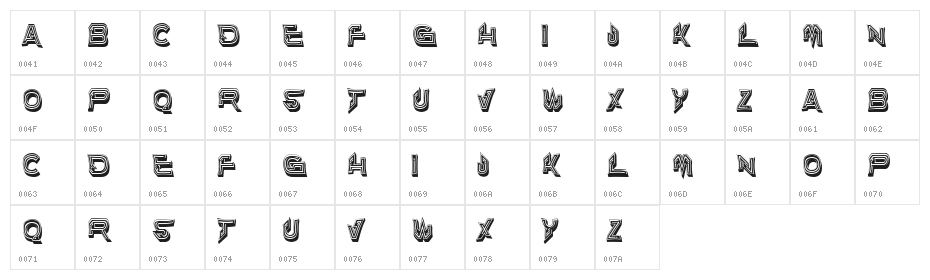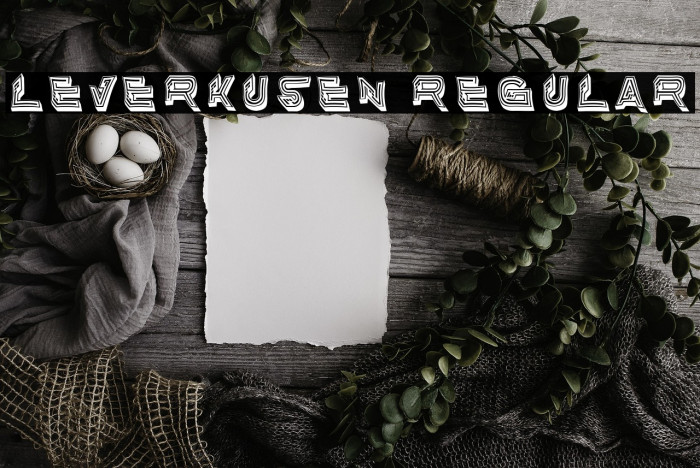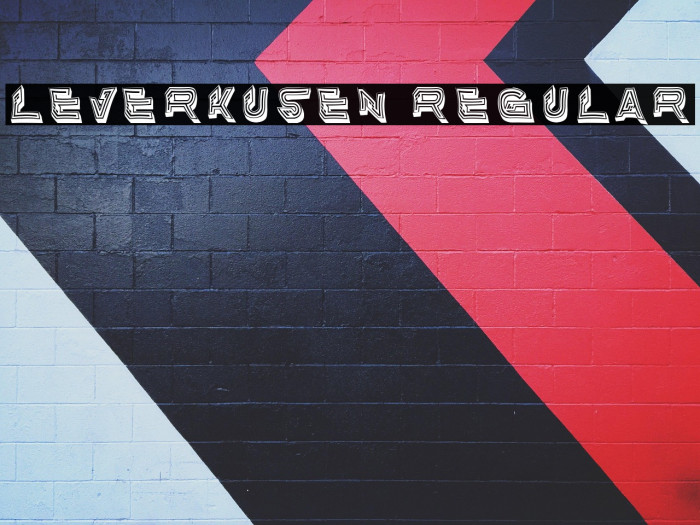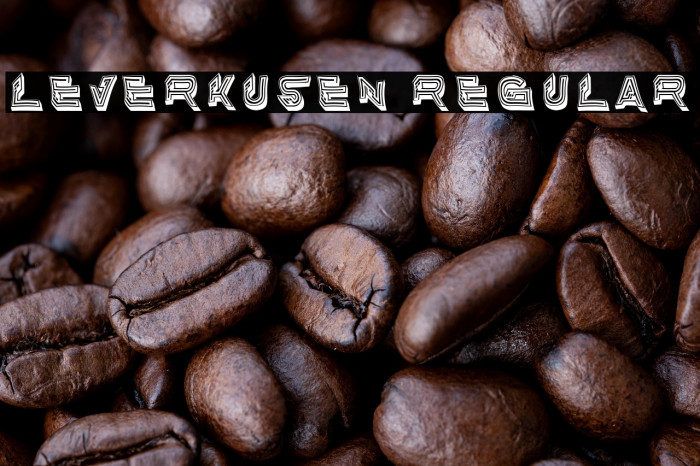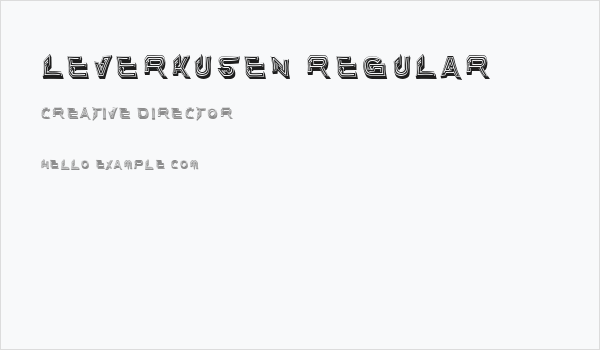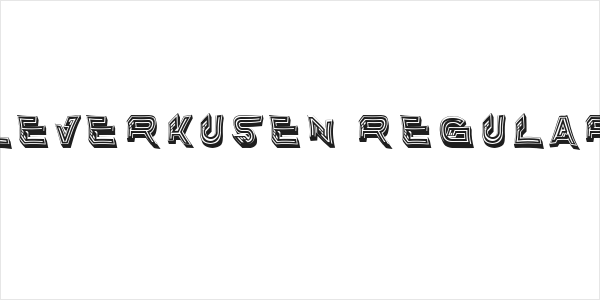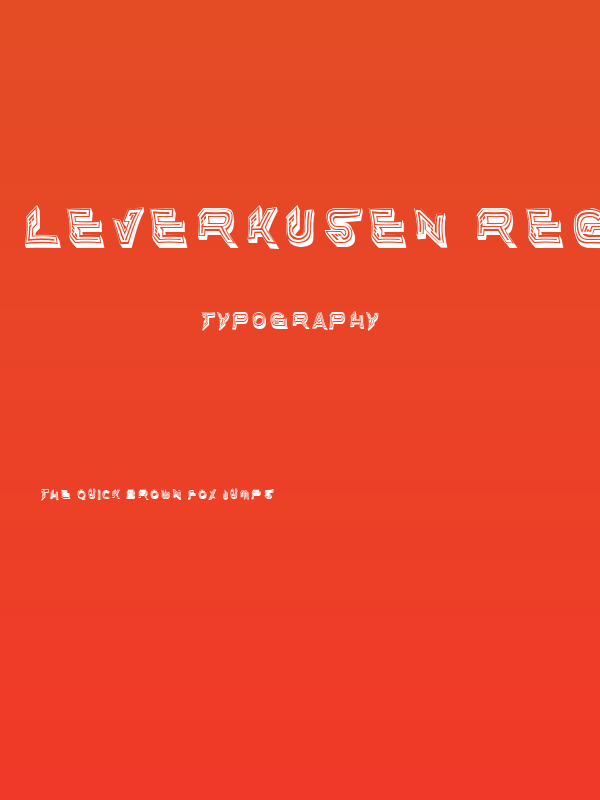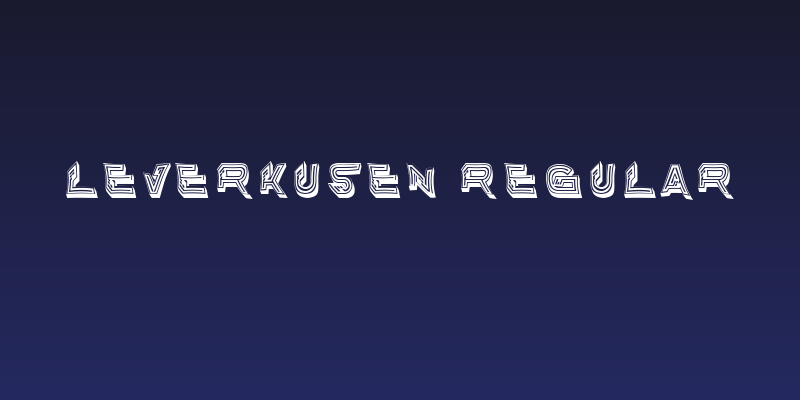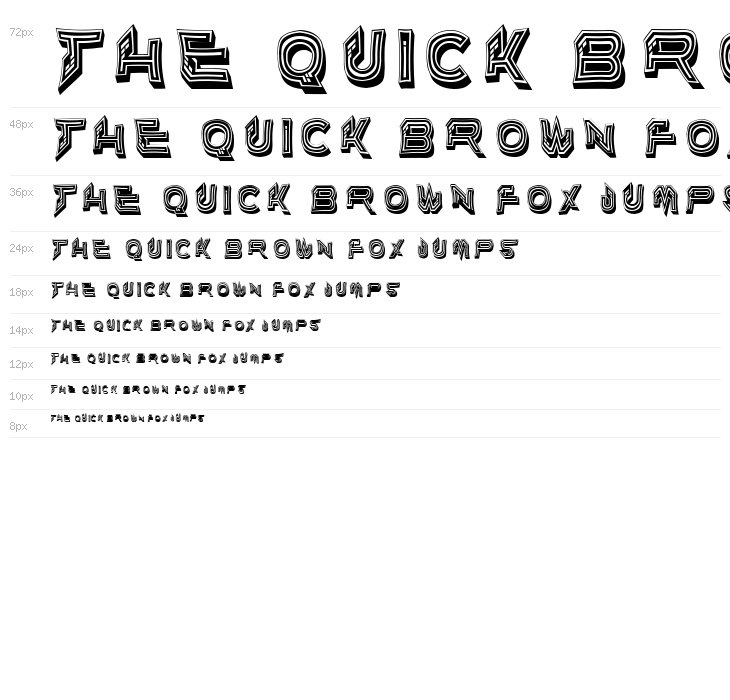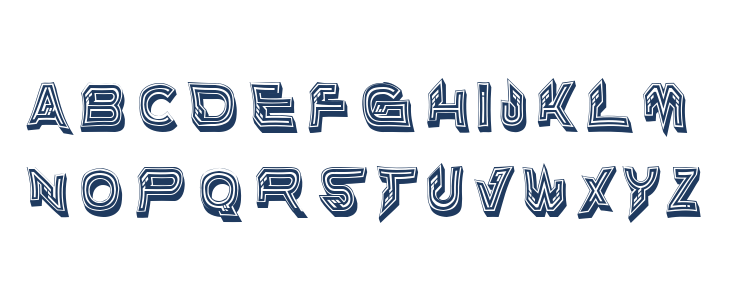
Leverkusen Regular Font
Leverkusen Regular Description
This font features a bold, geometric design with a three-dimensional effect that gives each character a dynamic and striking appearance. The letters are constructed with sharp angles and clean lines, creating a sense of movement and depth. The style is reminiscent of futuristic or sci-fi themes, making it ideal for projects that require a modern and edgy look. The uppercase and lowercase letters maintain consistency in style, with the numbers and special characters following suit. The overall aesthetic is both eye-catching and versatile, suitable for a variety of creative applications.
| Proposed Projects | Ideal for sci-fi themed posters, video game titles, branding for tech companies, and modern art projects. |